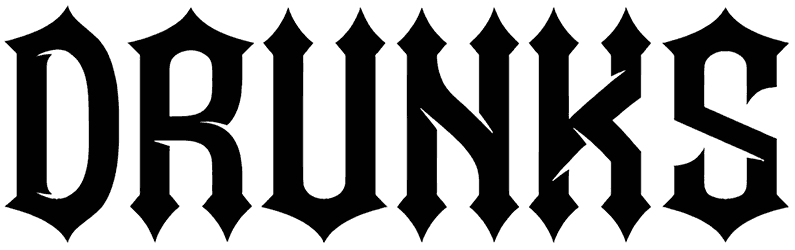
Drunks Font
The font used here is an excellent illustration of an old English font characterized by the same traditional letter designs used in past typefaces. It can be used to create tattoos, newspaper articles, CD covers, T-shirts, etc.
There is something bold and daring about the design of the Drunks font which compliments the contemporary designs quite nicely, although there are no lowercase letters in this epic and gothic font.